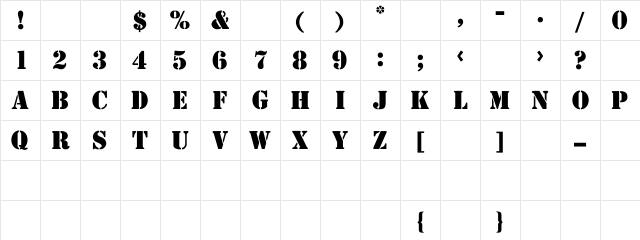
Stencil Regular
Stencil Family
Complete Stencil Regular glyph index. Displaying only characters natively supported by Stencil Regular font.
Design Context for Stencil
Stencil borrows the utilitarian aesthetic of stencil lettering, with its characteristic cutaways and no-frills construction lending an industrial edge.